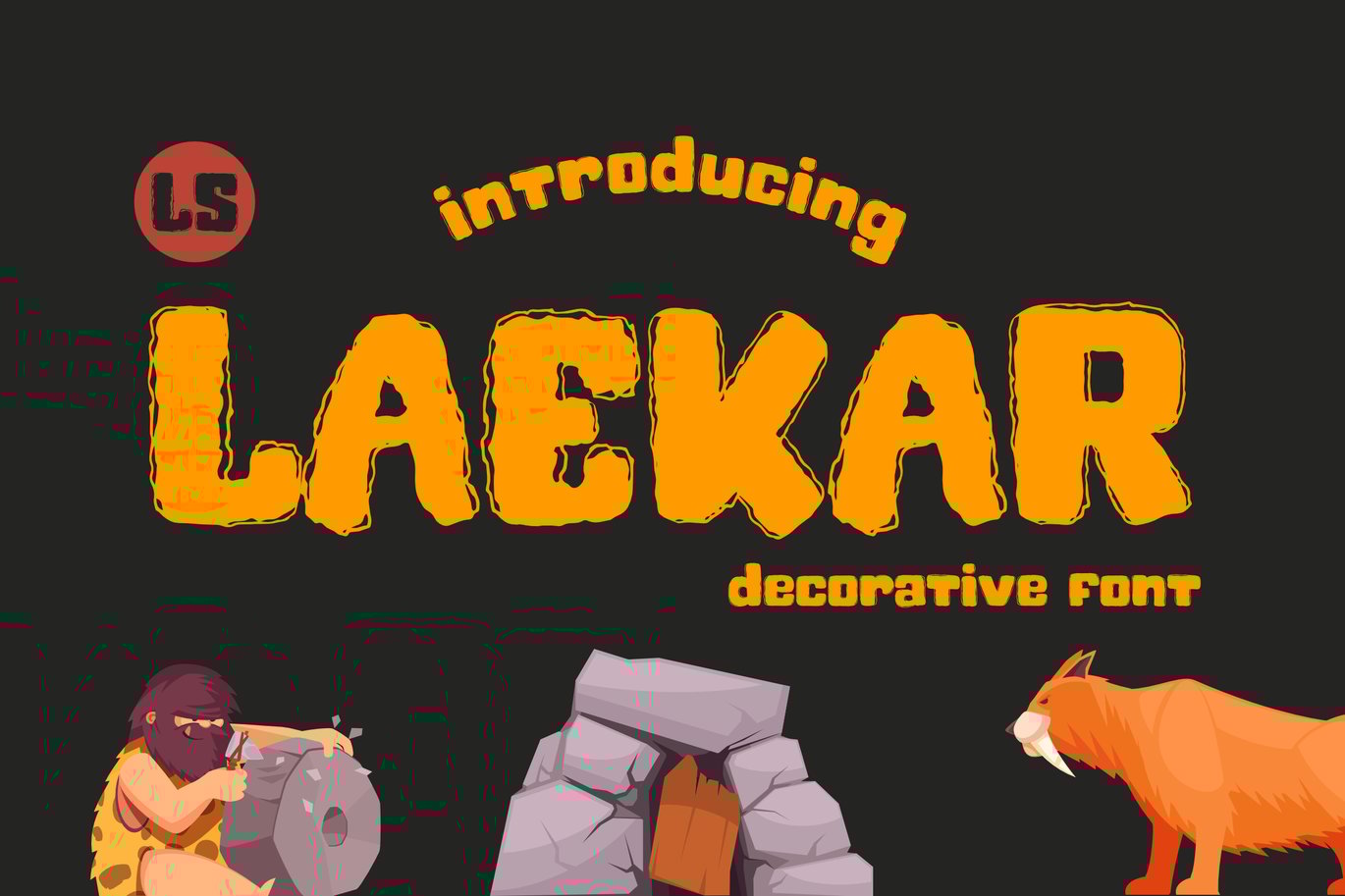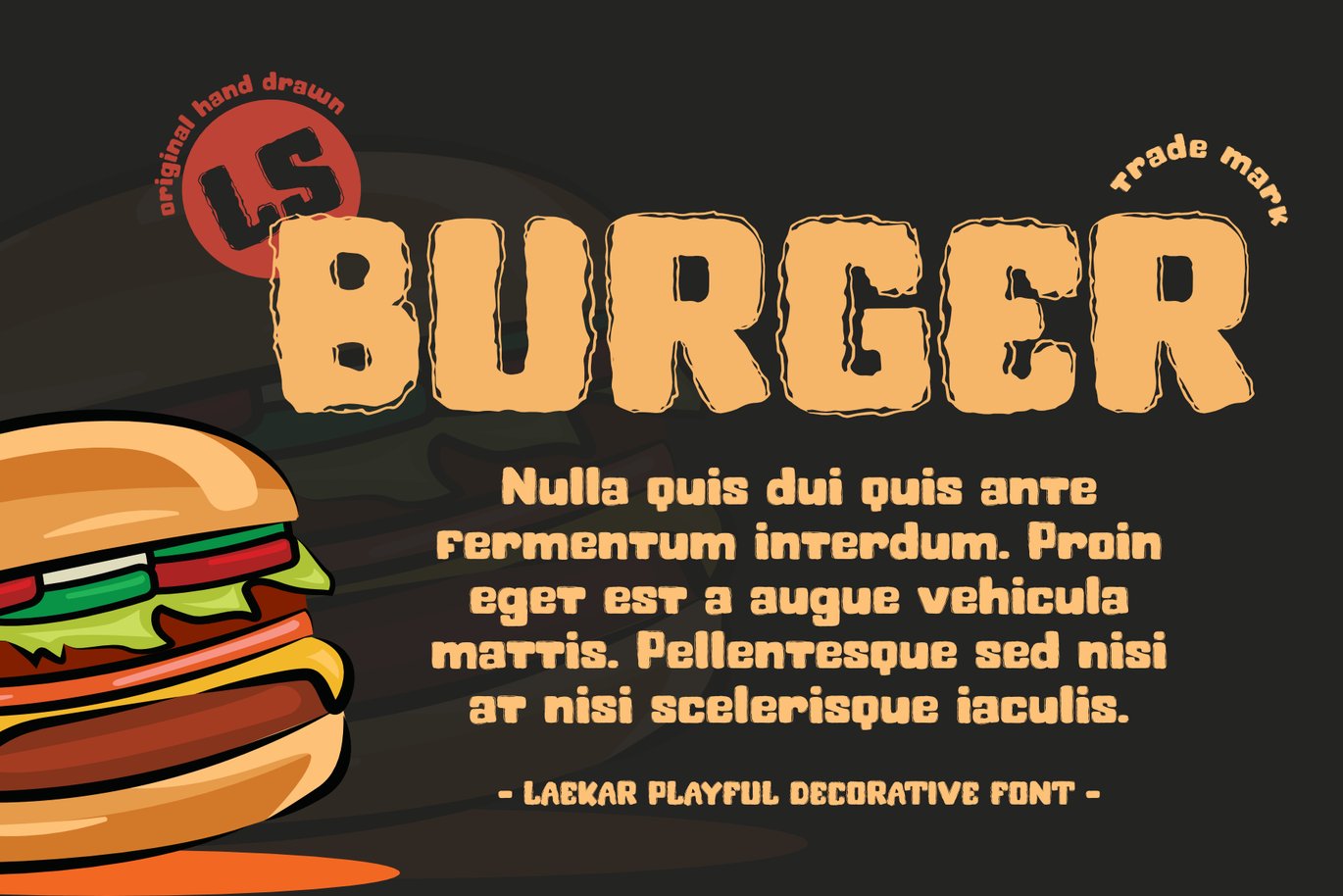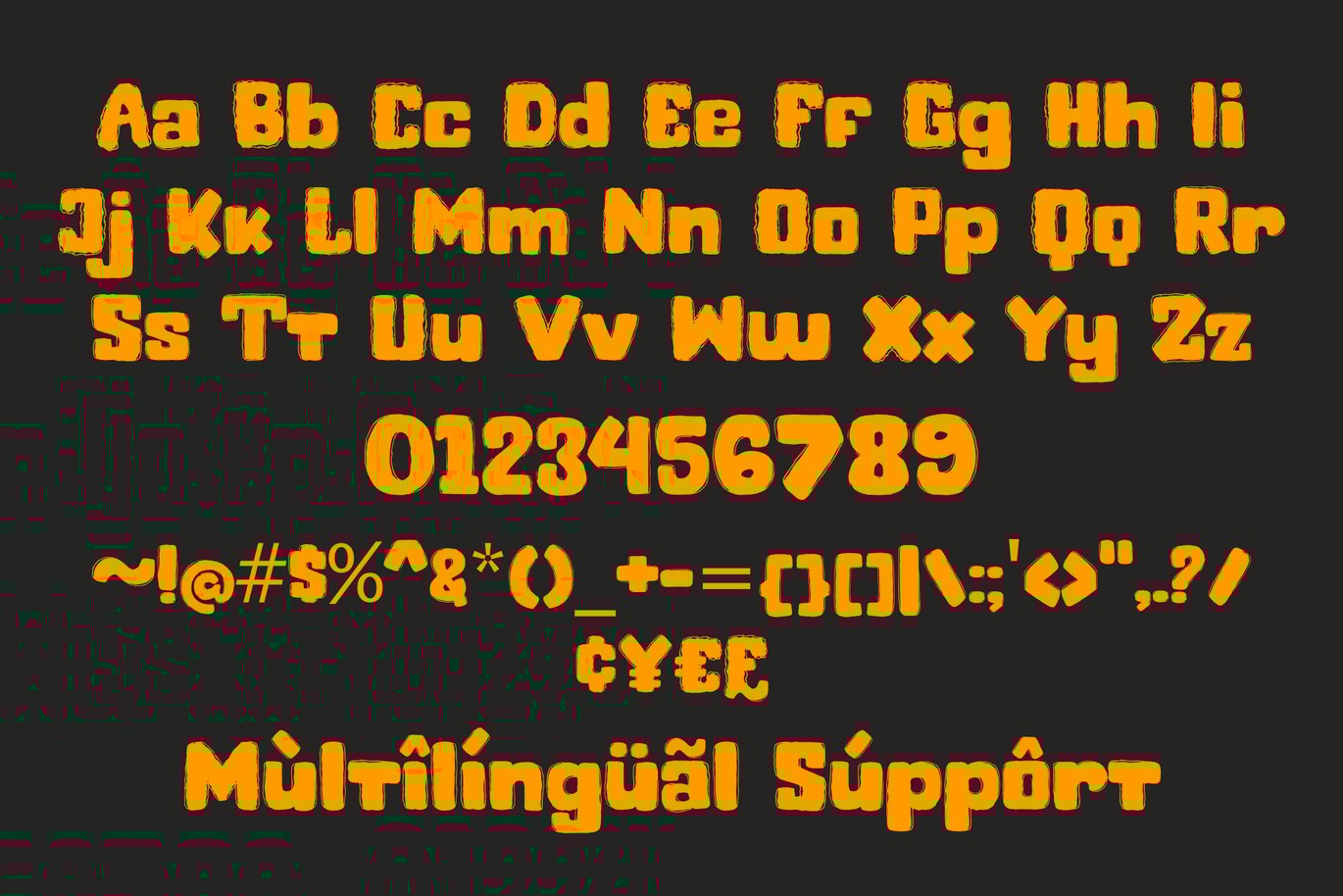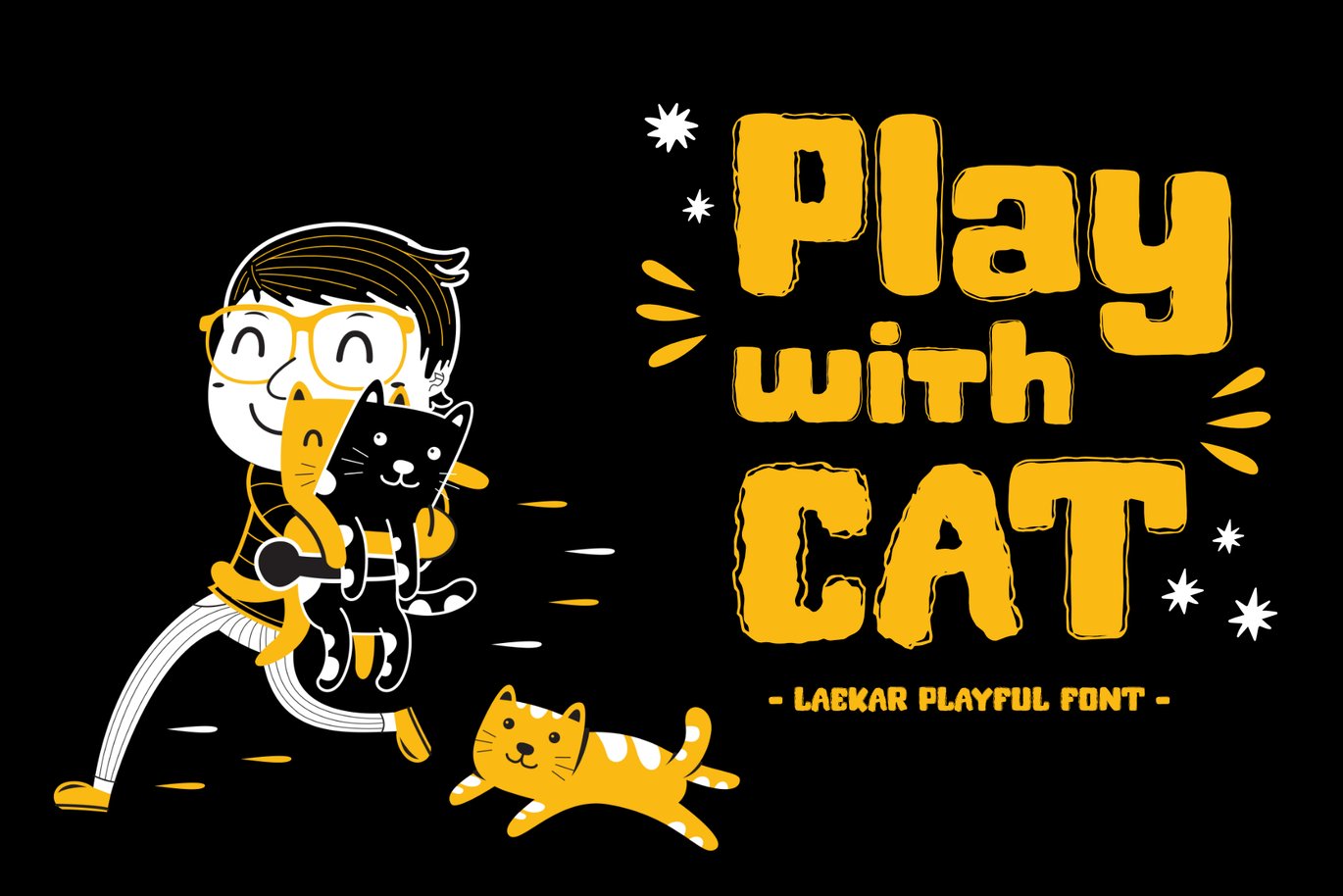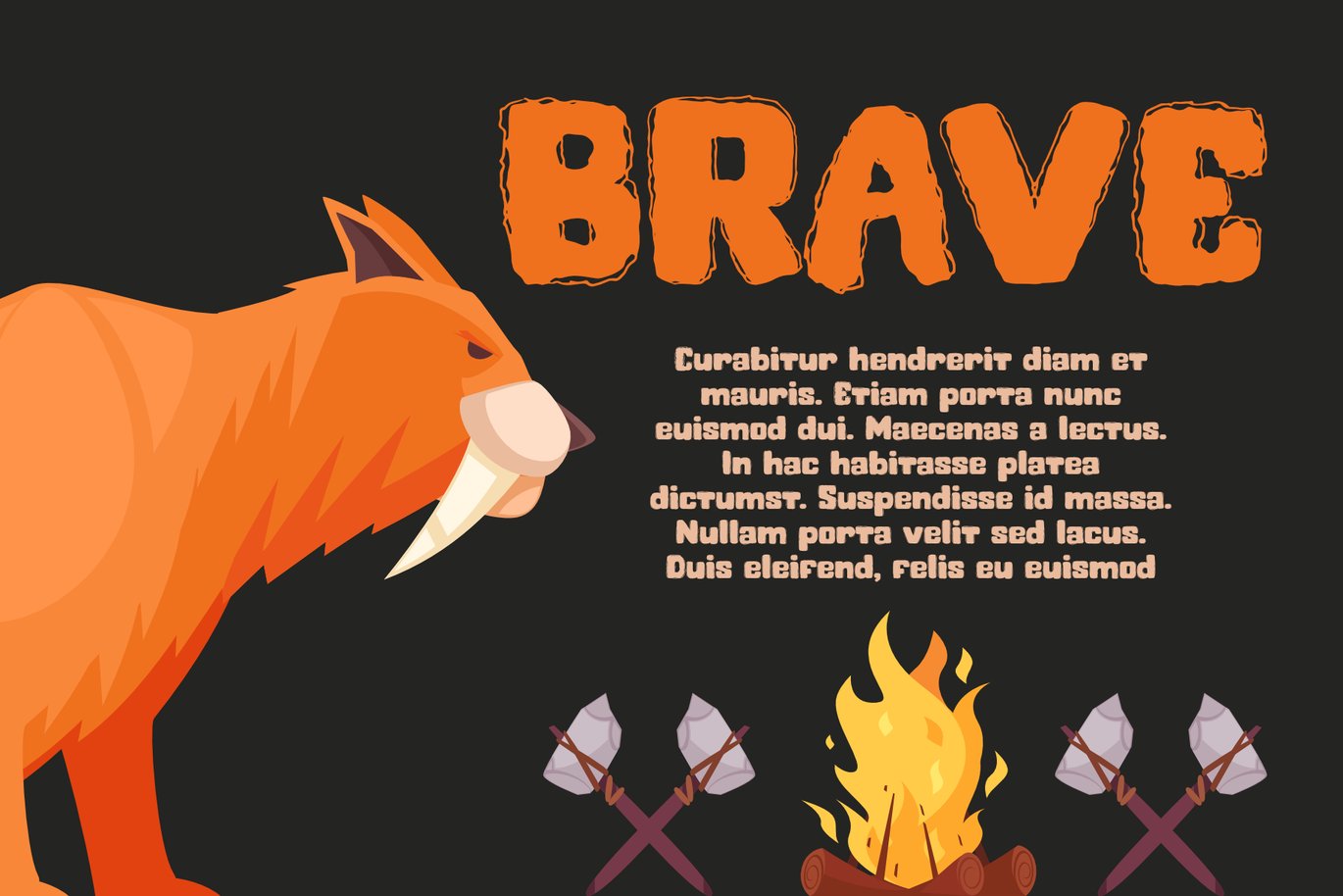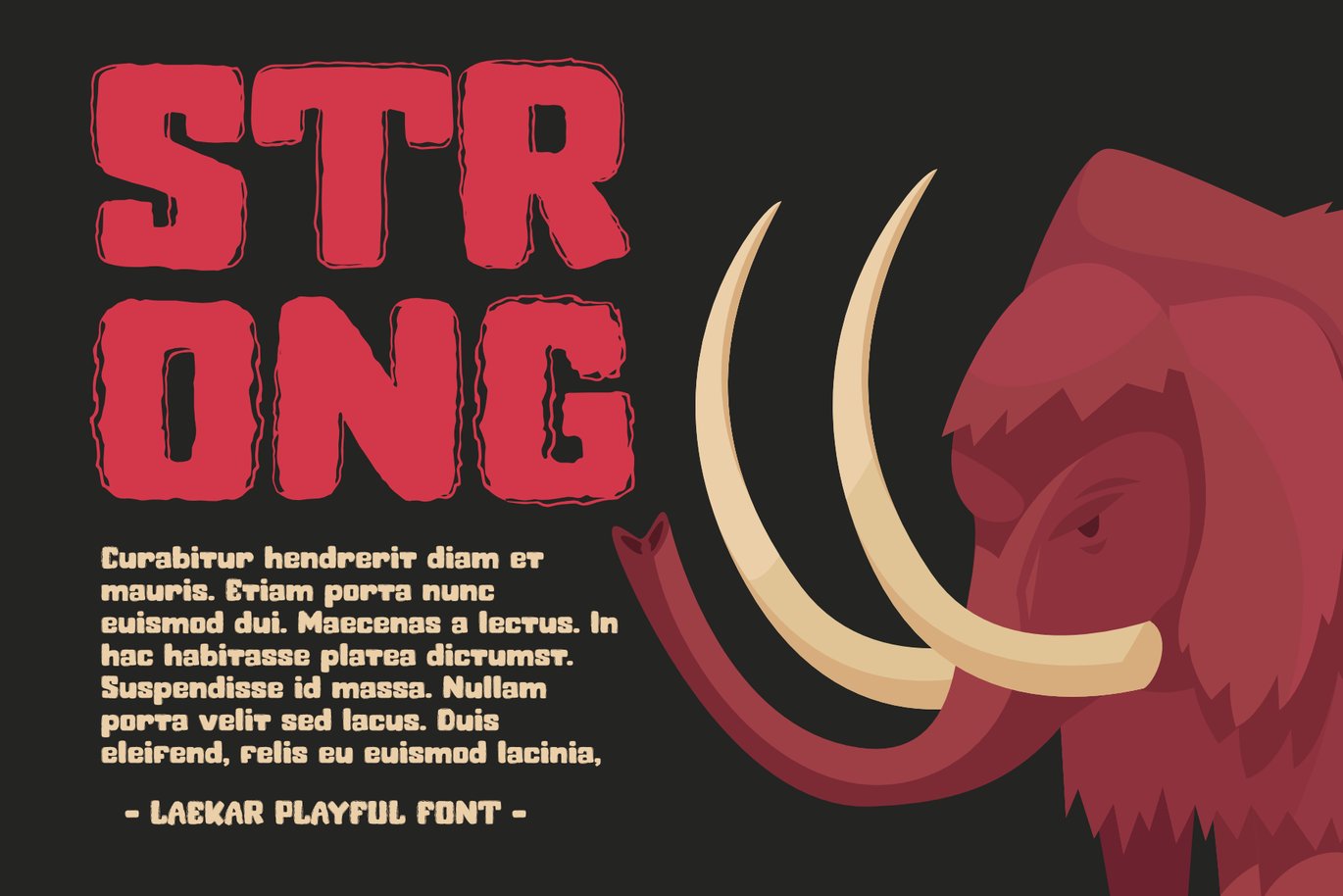
Laekar | Playful font
Laekar Font
This pair was inspired by the kids poster design that i saw on some coffee shop, It was crafted by hand specially to add natural handmade feeling in its brand identity than i make it clean with pentool.
Laekar Font is very good looking in logo, labels, t-shirt prints, product packaging, invitations, advertising and others.